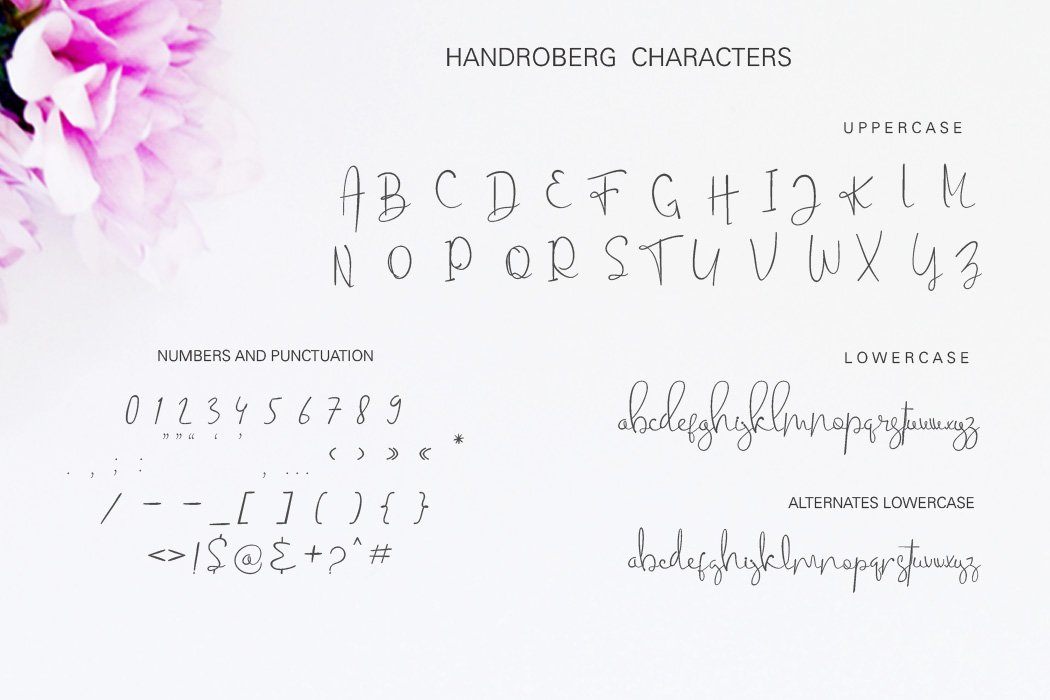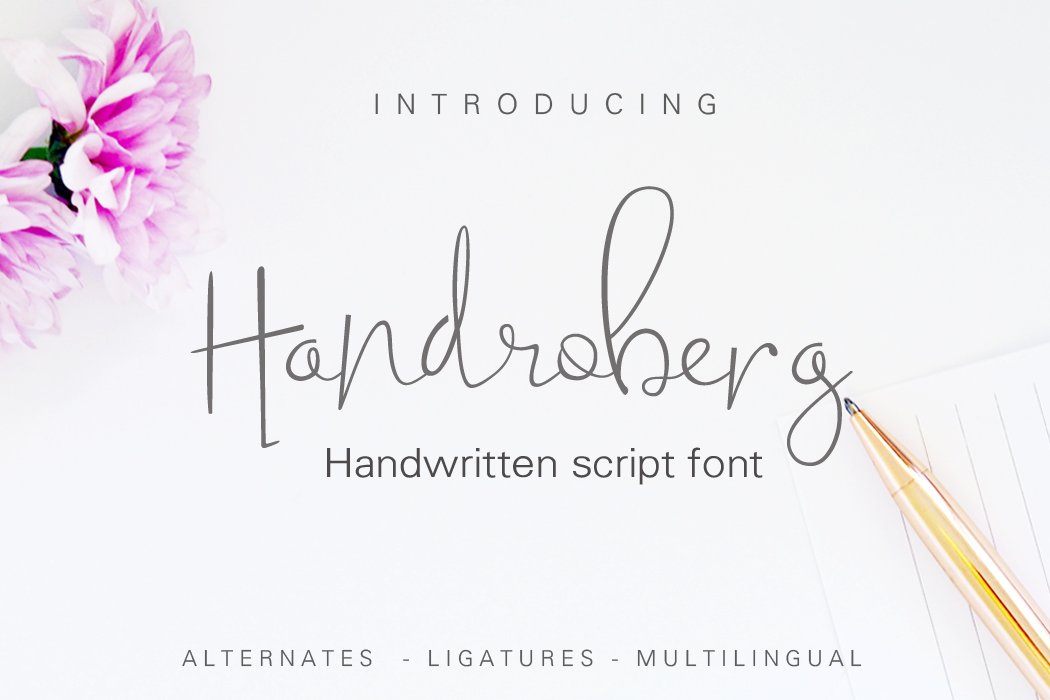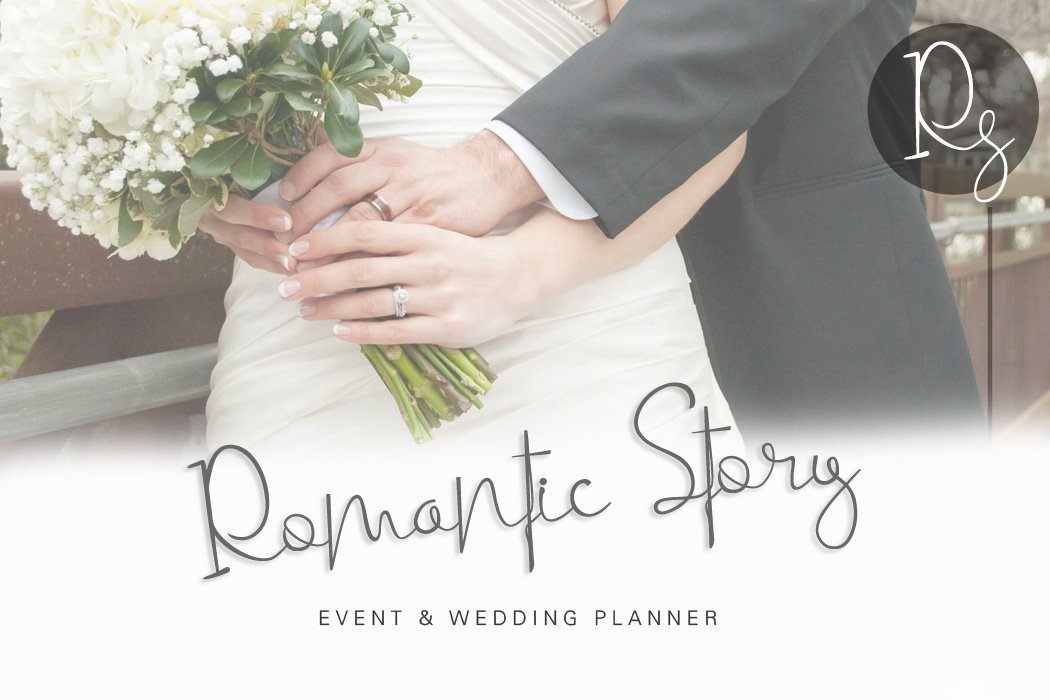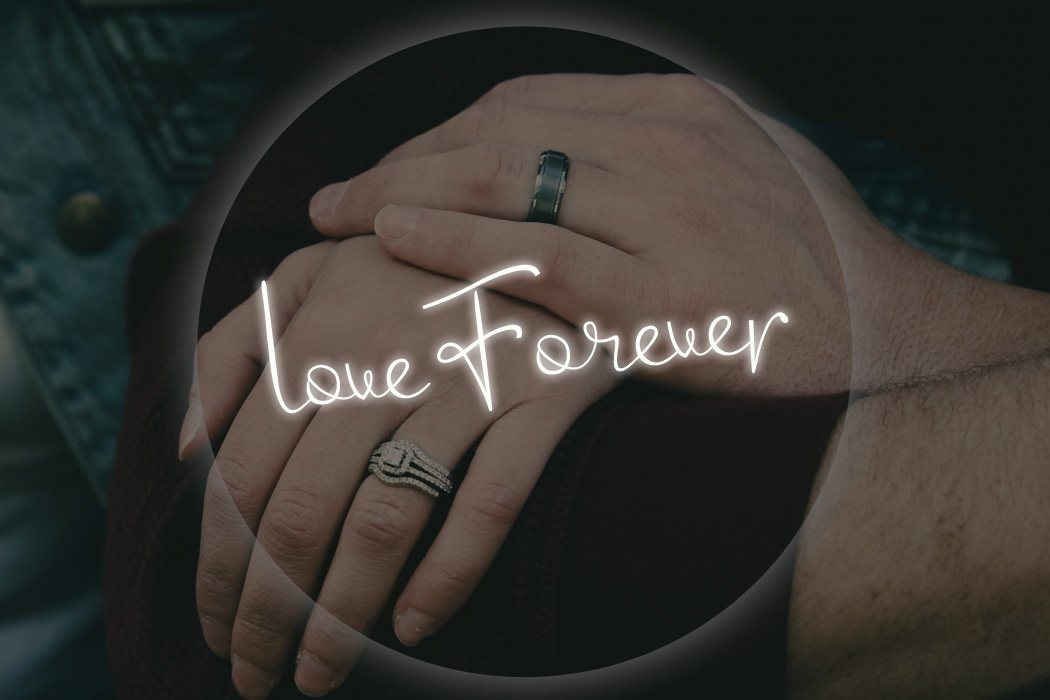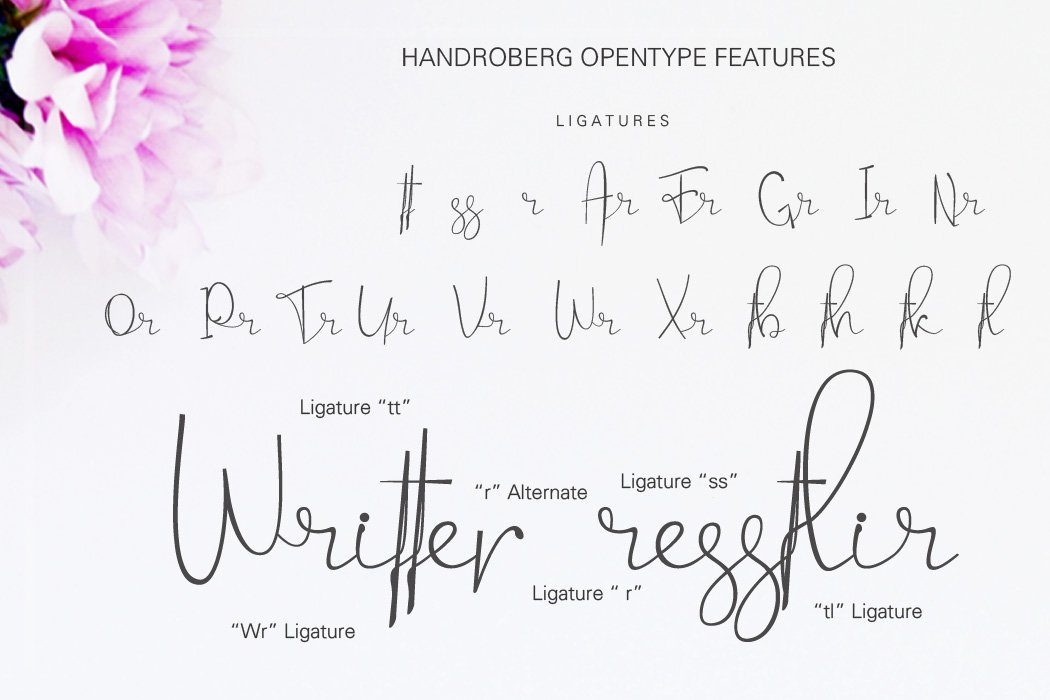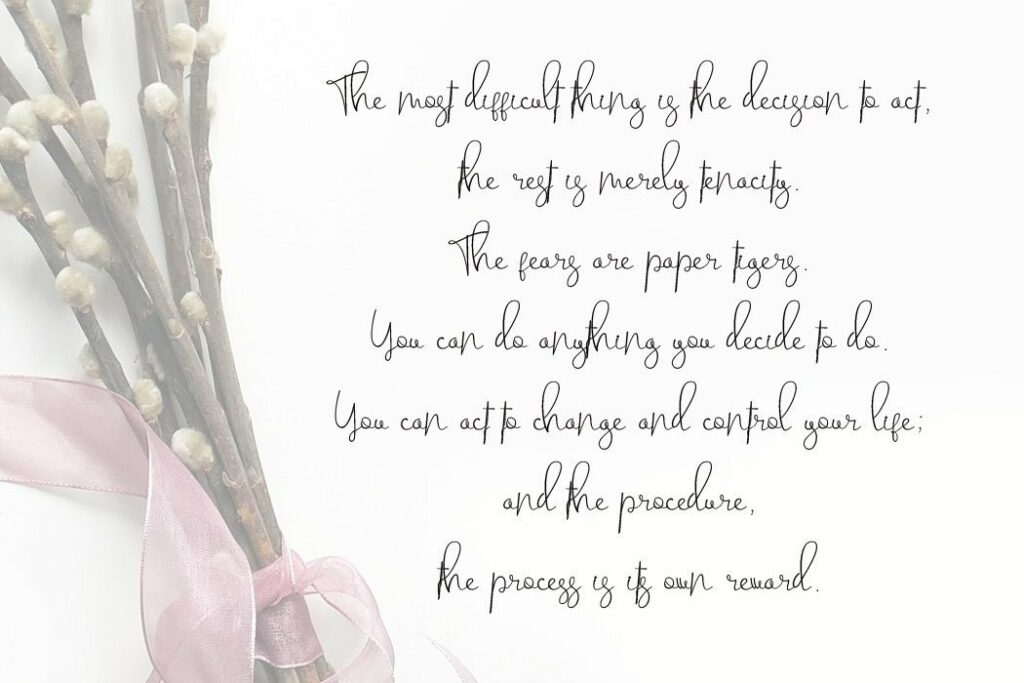
About Handroberg font
Handroberg Font Handroberg is a nice handwritten script font. Its variety of alternates andligatures provide a range of choices that will help you find the best typographic color for your project. Suitable for wedding invitation, any greeting cards, quotes, headers, or any design that needs natural and personal touch. Features : – Available in single OTF and TTF files (Alternates also available in TTF separately ) – Uppercase A-Z – Lowercase a-z – Numbers 0-9 – Punctuation – Custom Ligatures – lowercase alternates – PUA Encoded – Multilingual support – Support for Windows, Mac and Linux OS Included : – Handroberg.otf – Handroberg.ttf – HandrobergAlt.ttf (Alternate glyphs) Please install OTF file You need a program that supports OpenType features like Adobe Illustrator CS, Adobe Indesign & CorelDraw X6-X7, Microsoft Word 2010 or later to enable OpenType features (ligatures and alternates). Please install all TTF files You should install all of TTF files in case you don’t have the programs that support OpenType features, so you can access all Handroberg’s characters in almost all text processing program. We hope you enjoy this font!! Thank you..